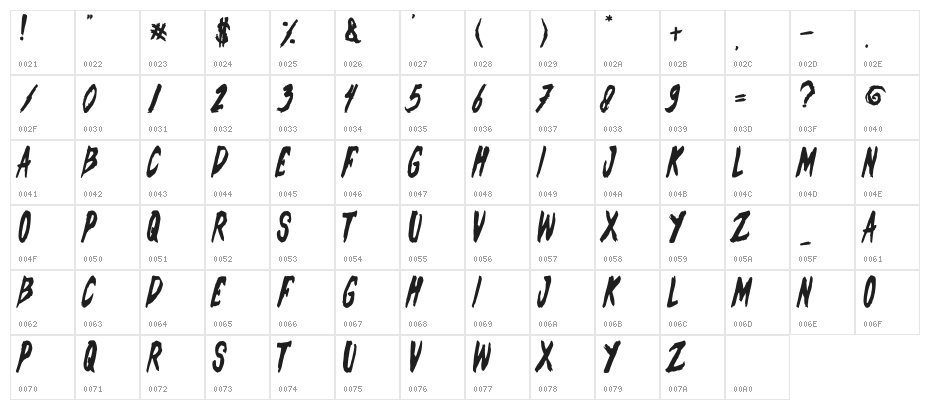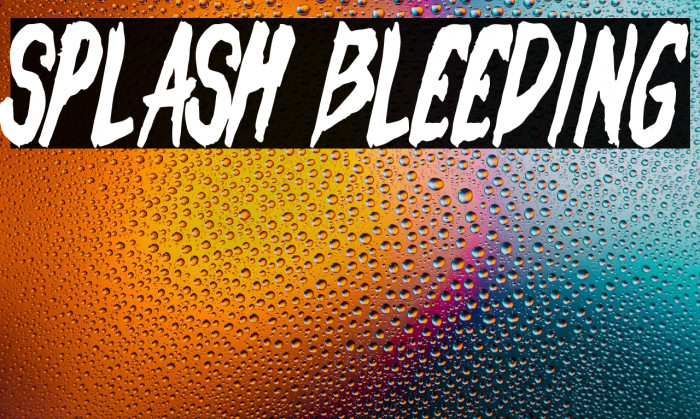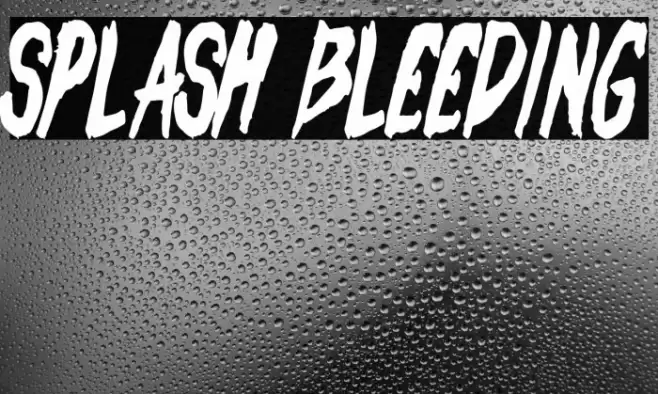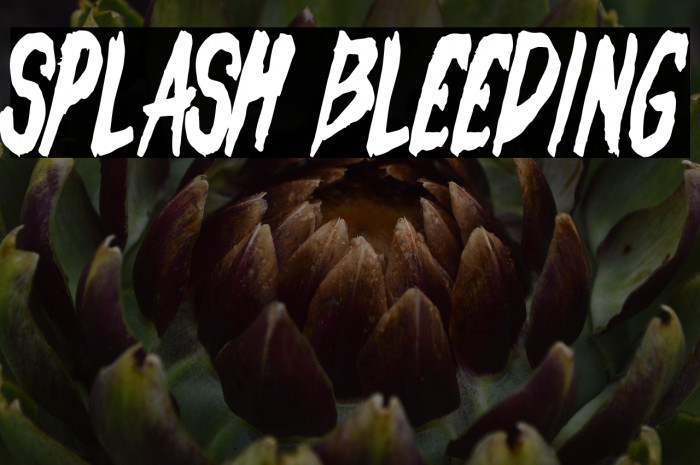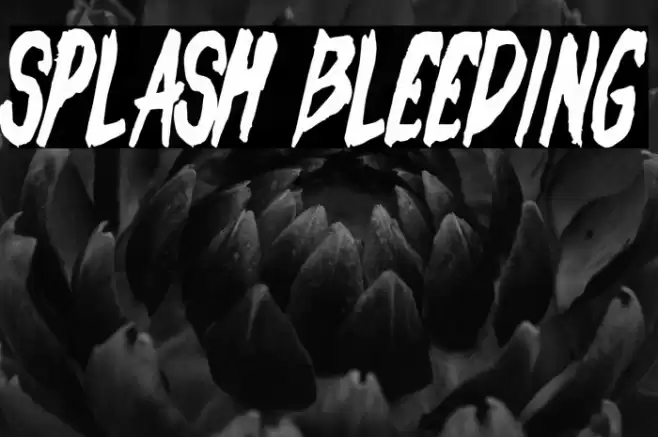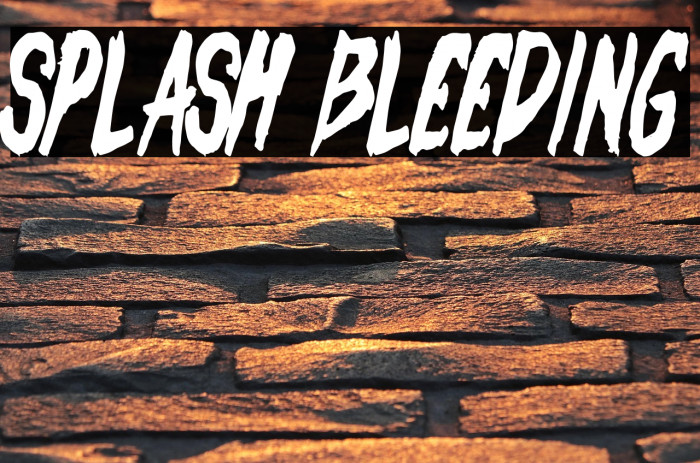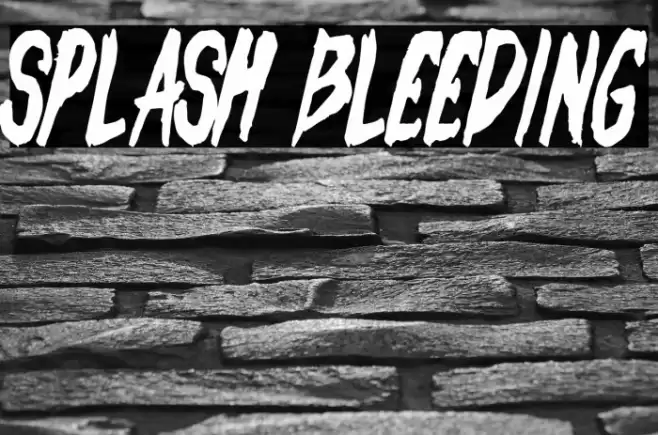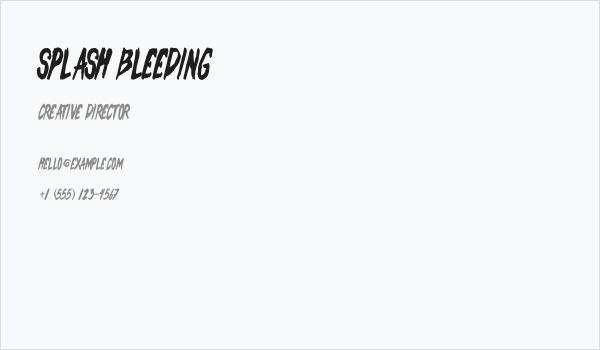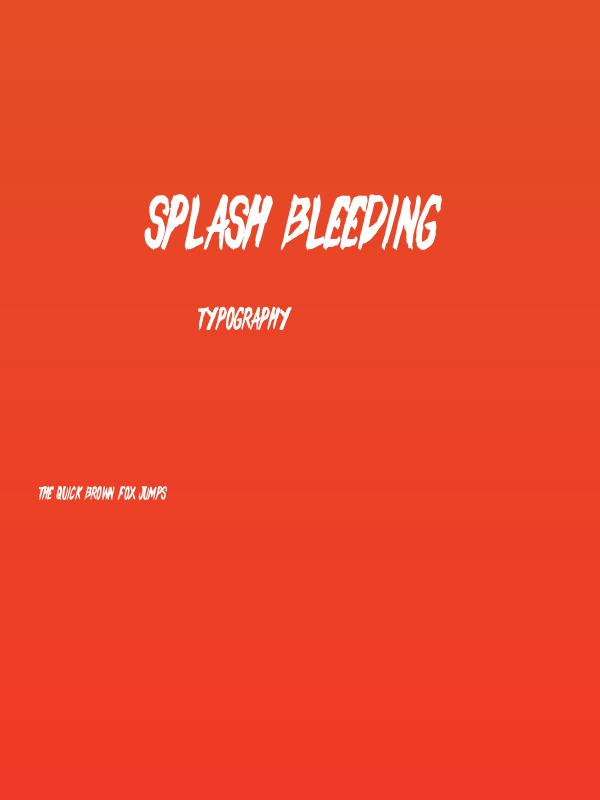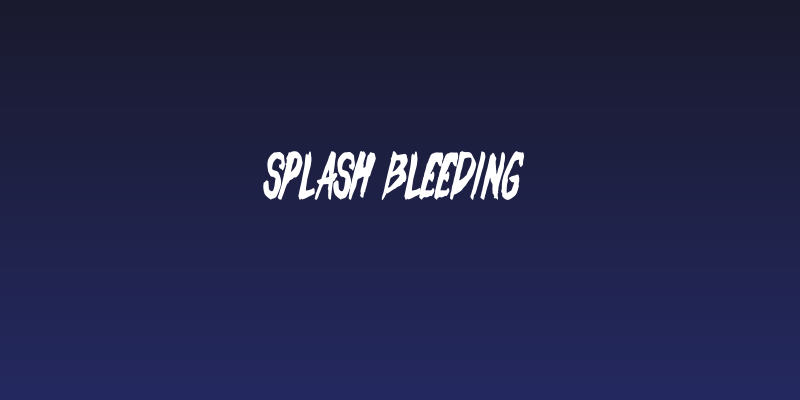
Splash Bleeding Font
Splash Bleeding Description
This font features a bold, dynamic style with a hand-painted appearance, characterized by its rough, textured edges and energetic strokes. The letters are slightly slanted, adding a sense of movement and urgency. The uppercase and lowercase alphabets maintain a consistent style, with each character exhibiting unique, irregular shapes that contribute to the font's expressive nature. The numbers and special characters follow the same aesthetic, ensuring a cohesive look across all text. This font's design is reminiscent of graffiti or street art, making it ideal for projects that require a bold, artistic flair.
| Use Case | Headlines, Posters, Artistic Branding |
| Proposed Projects | Ideal for street art-inspired designs, posters, album covers, and branding that requires a bold, artistic touch. |